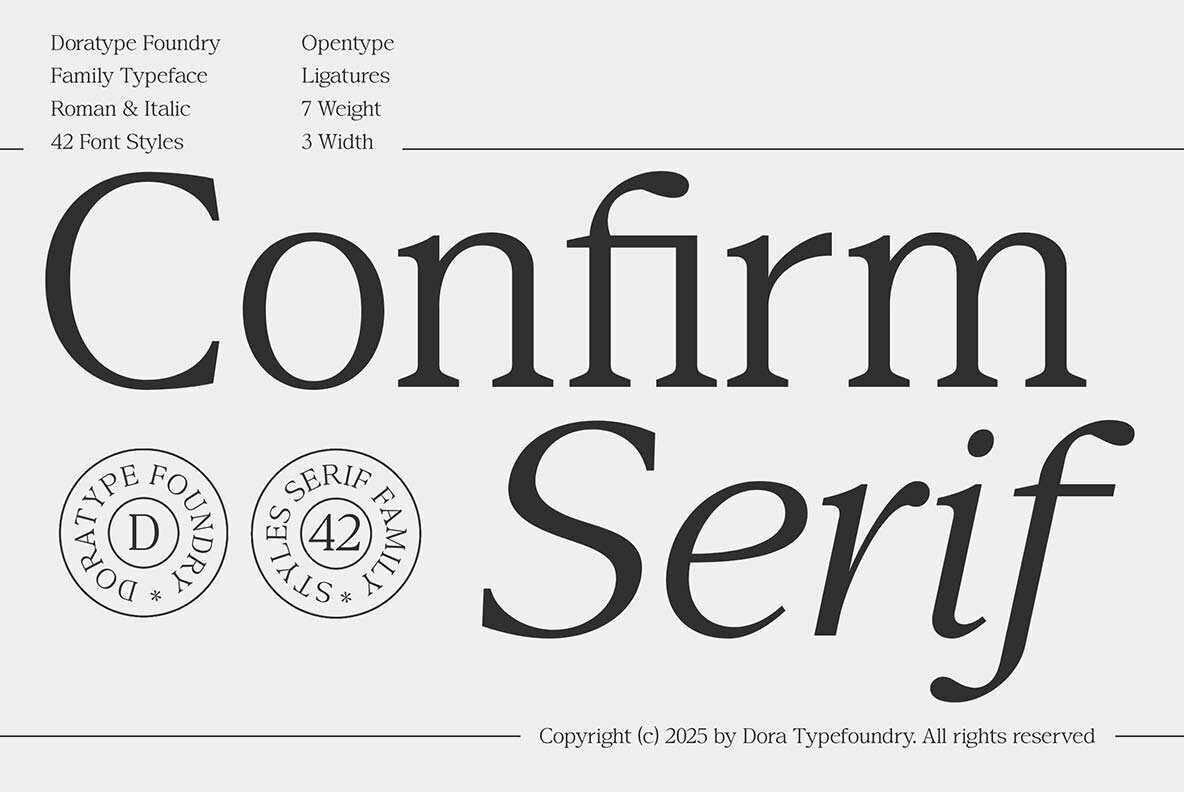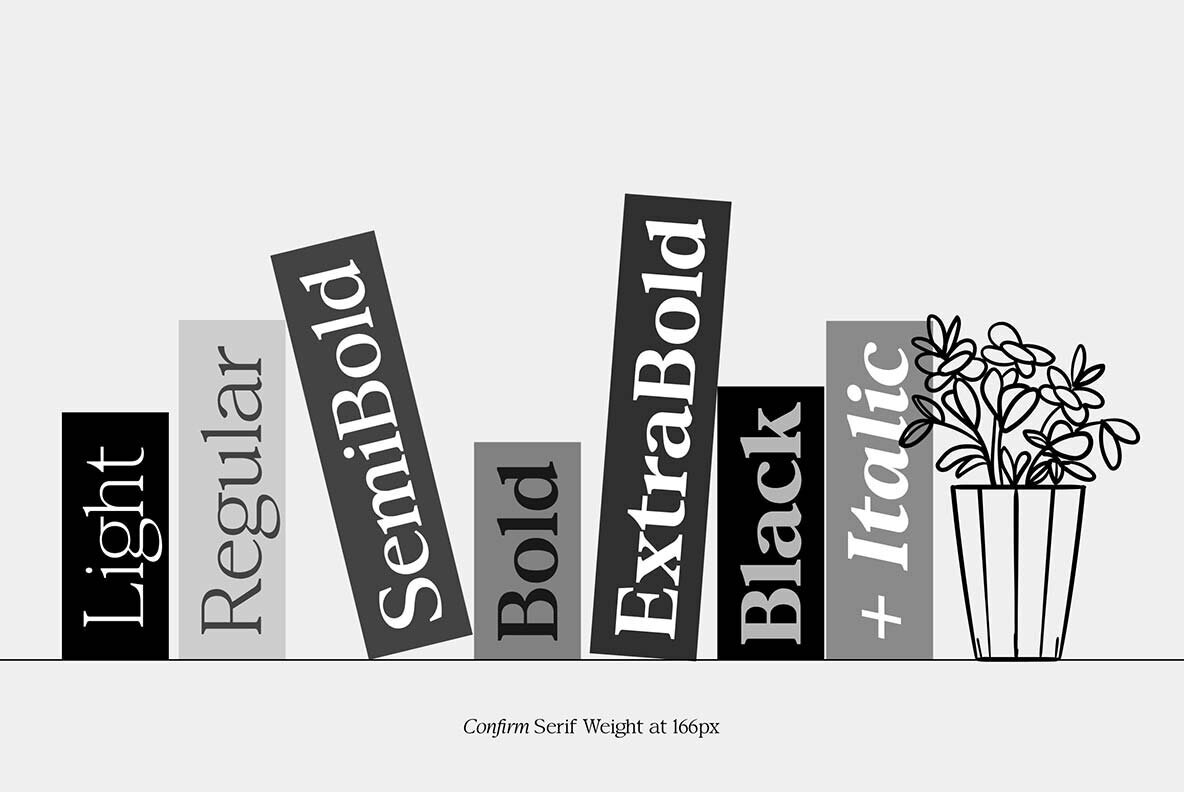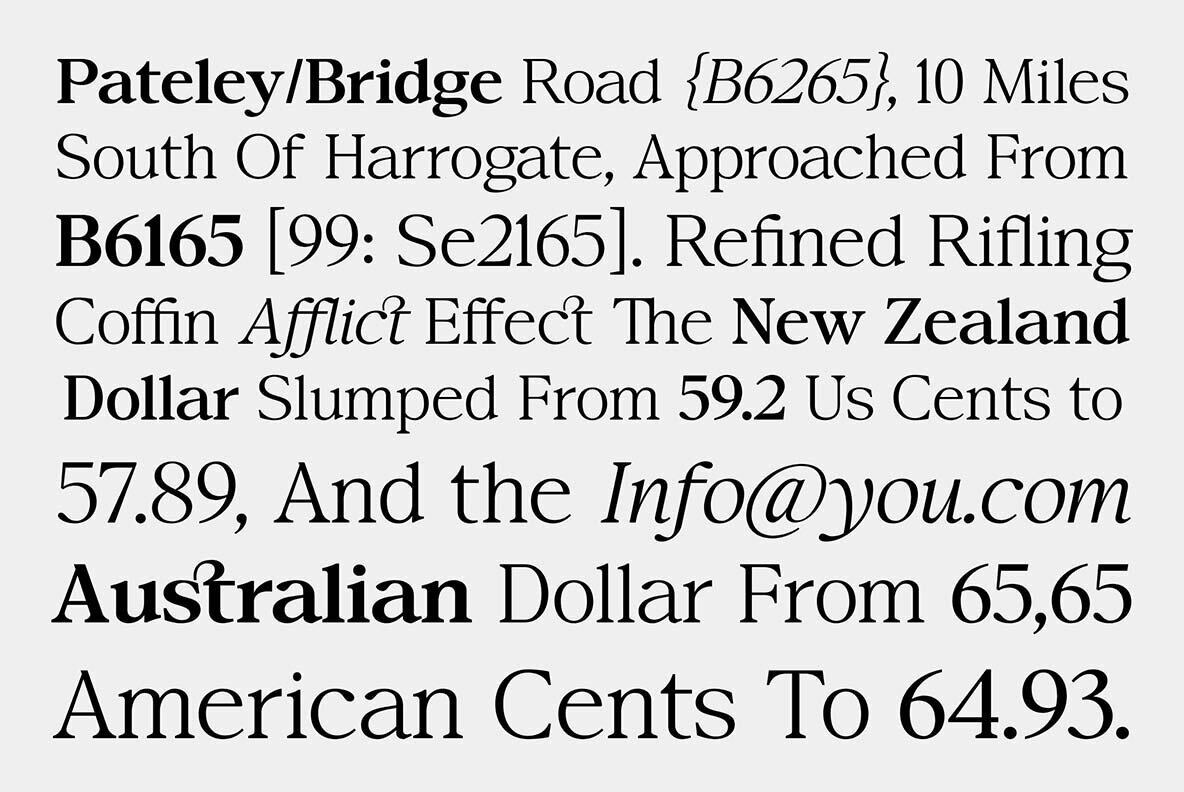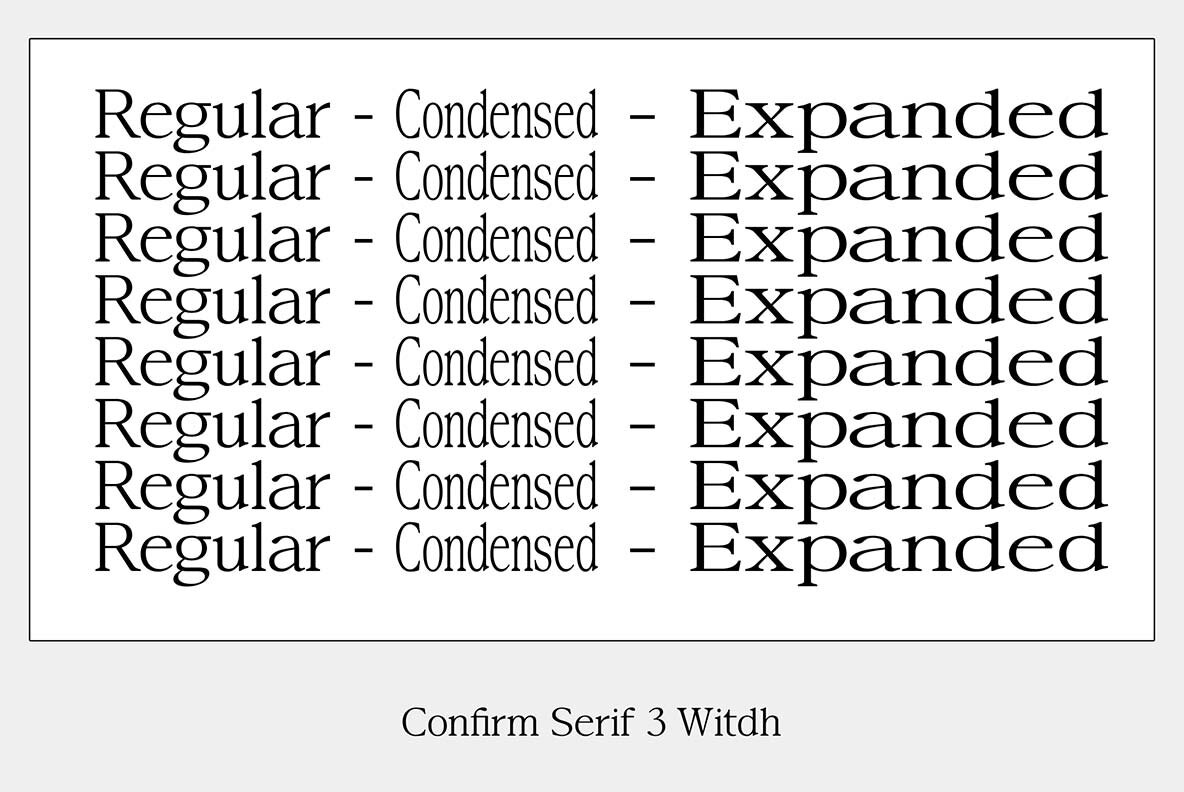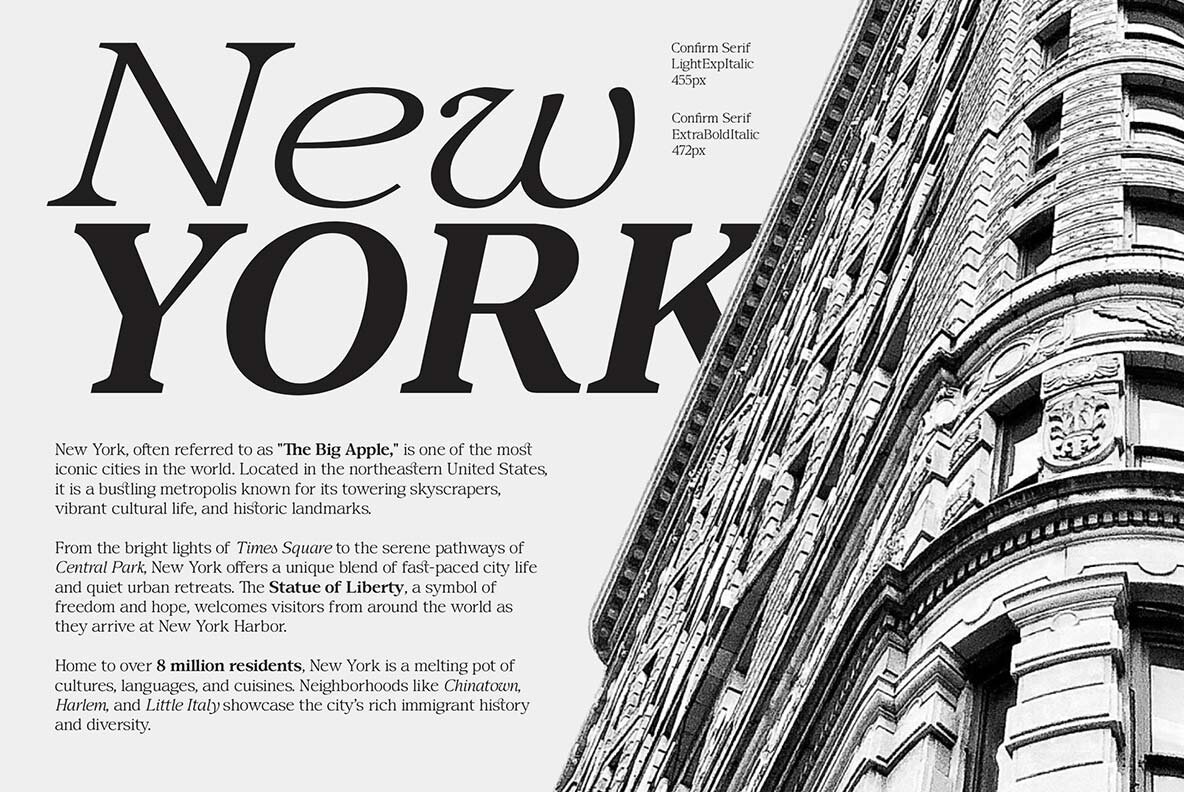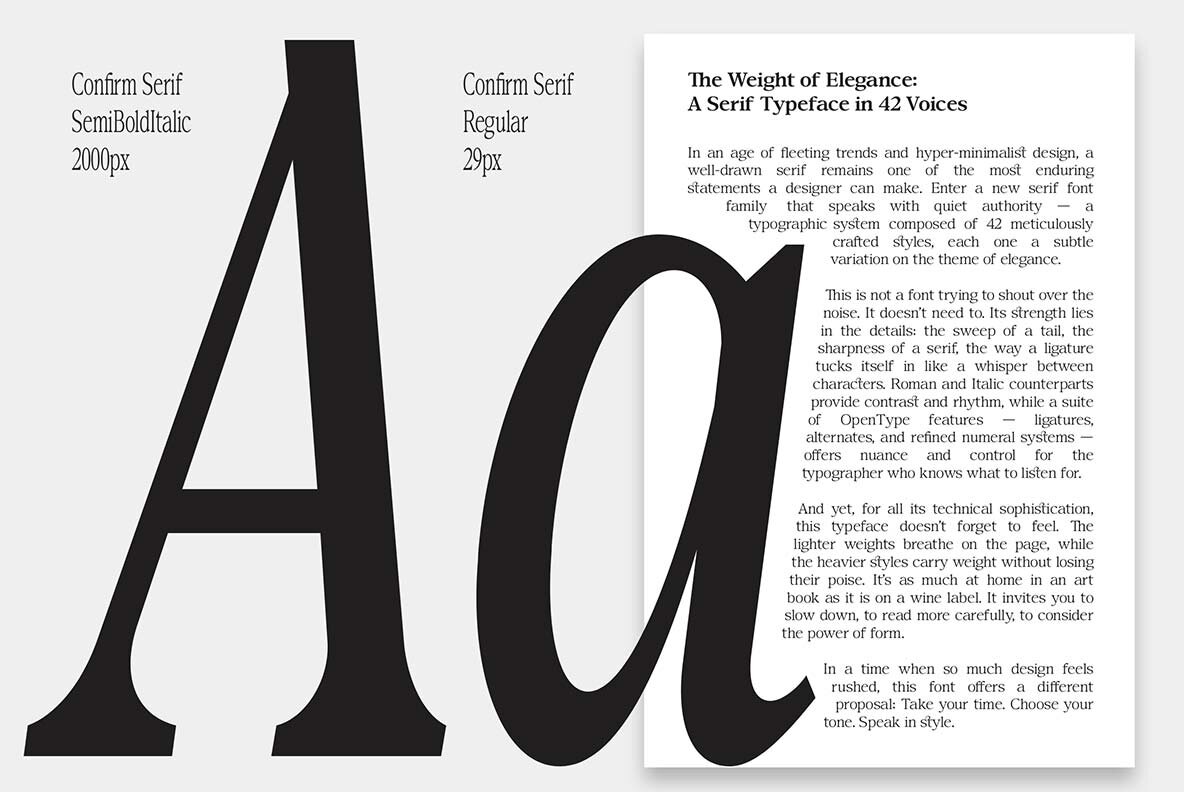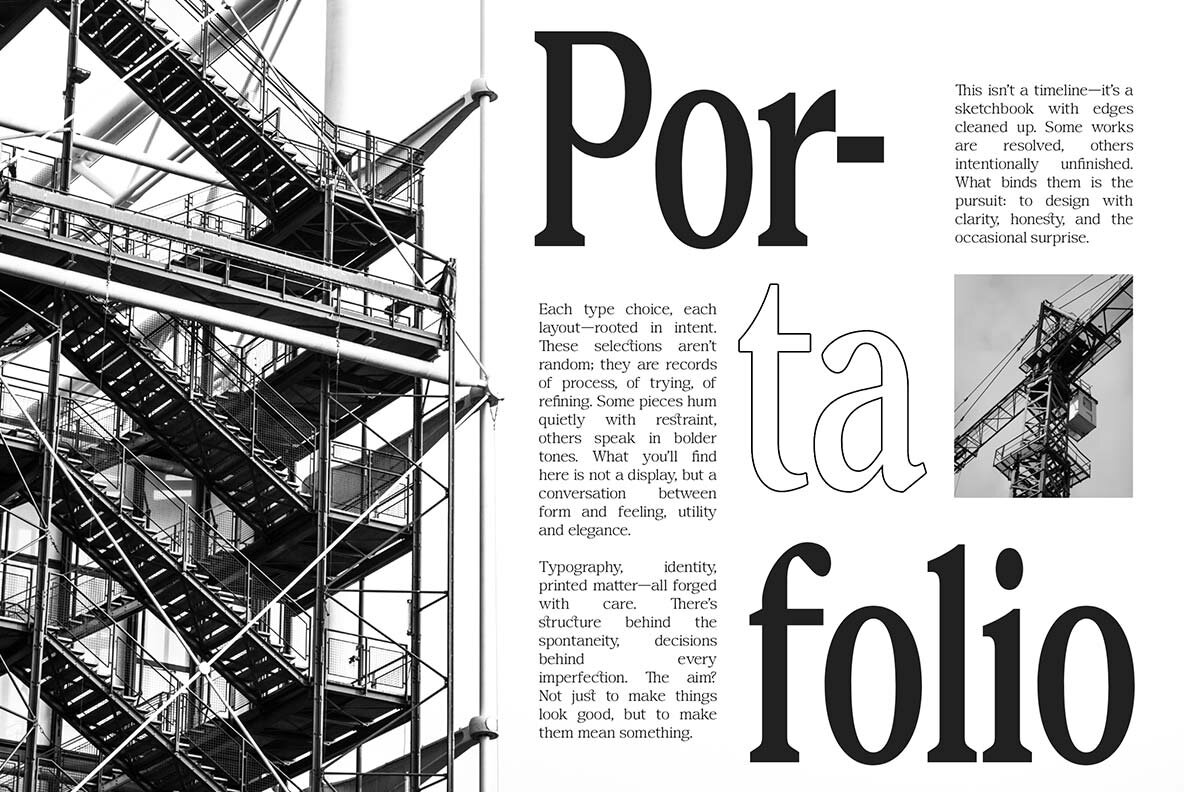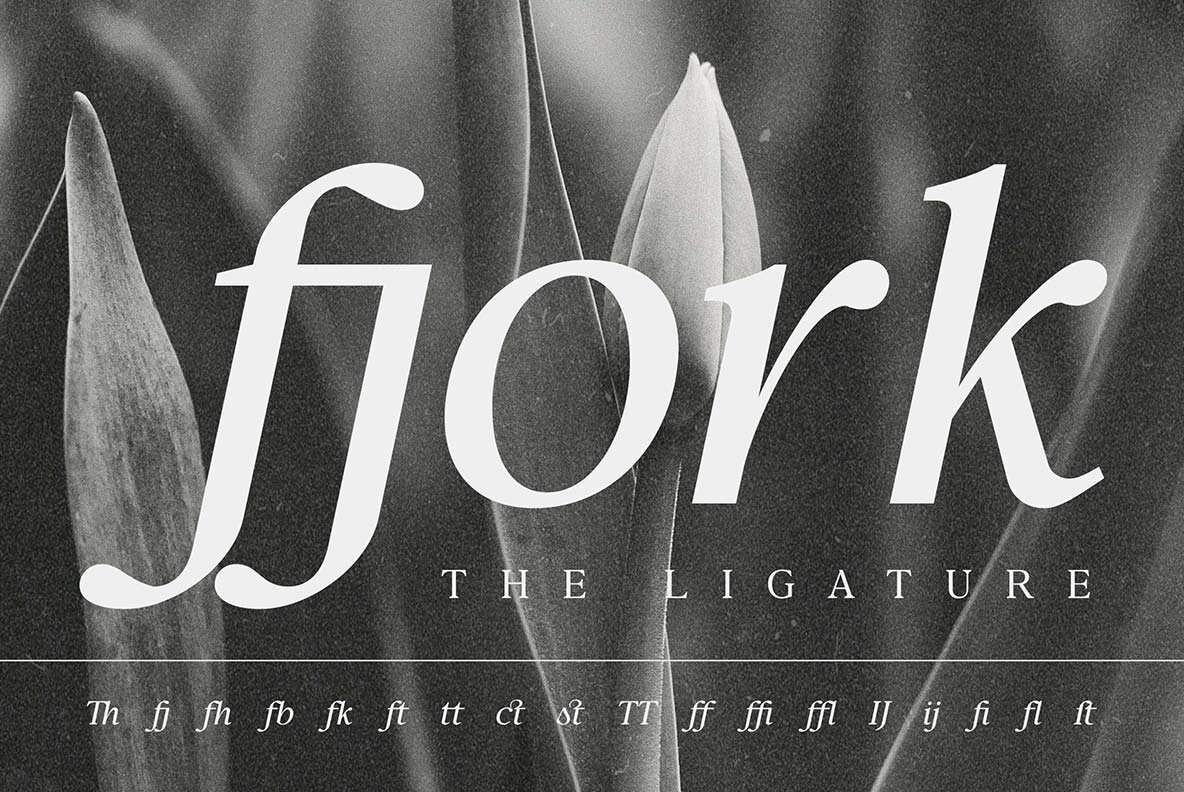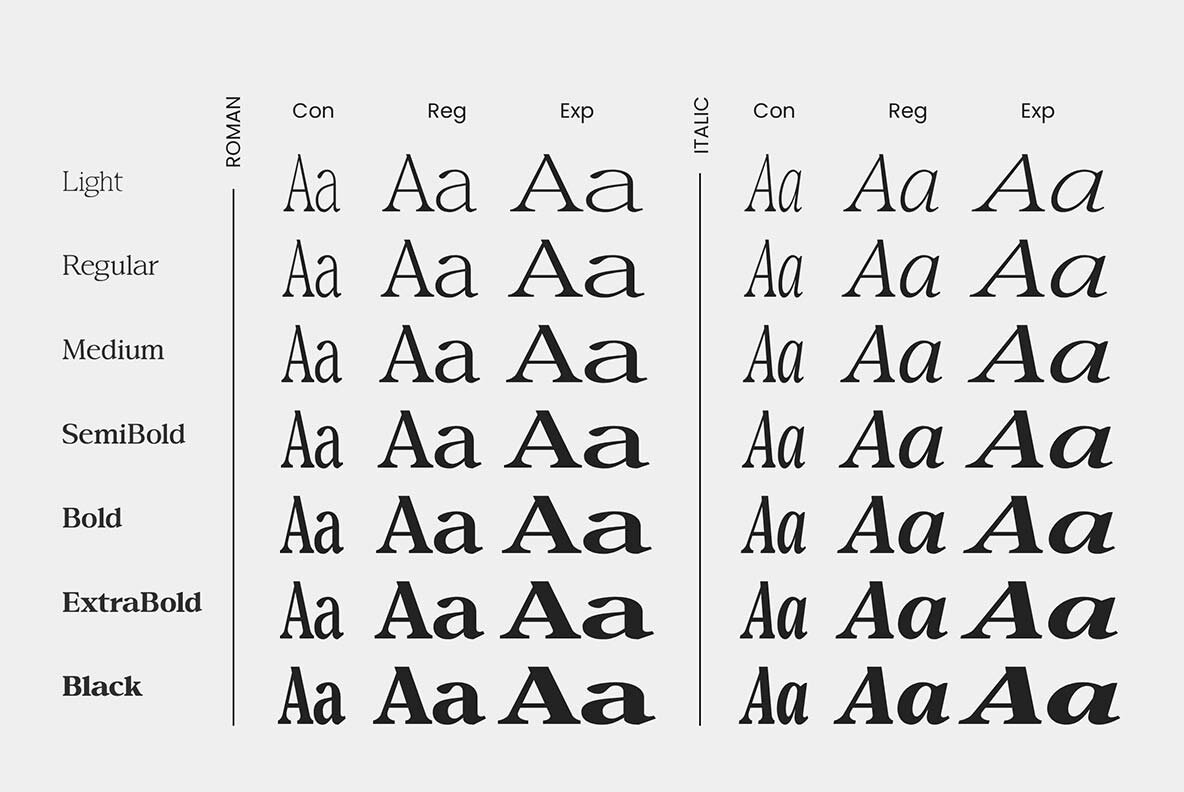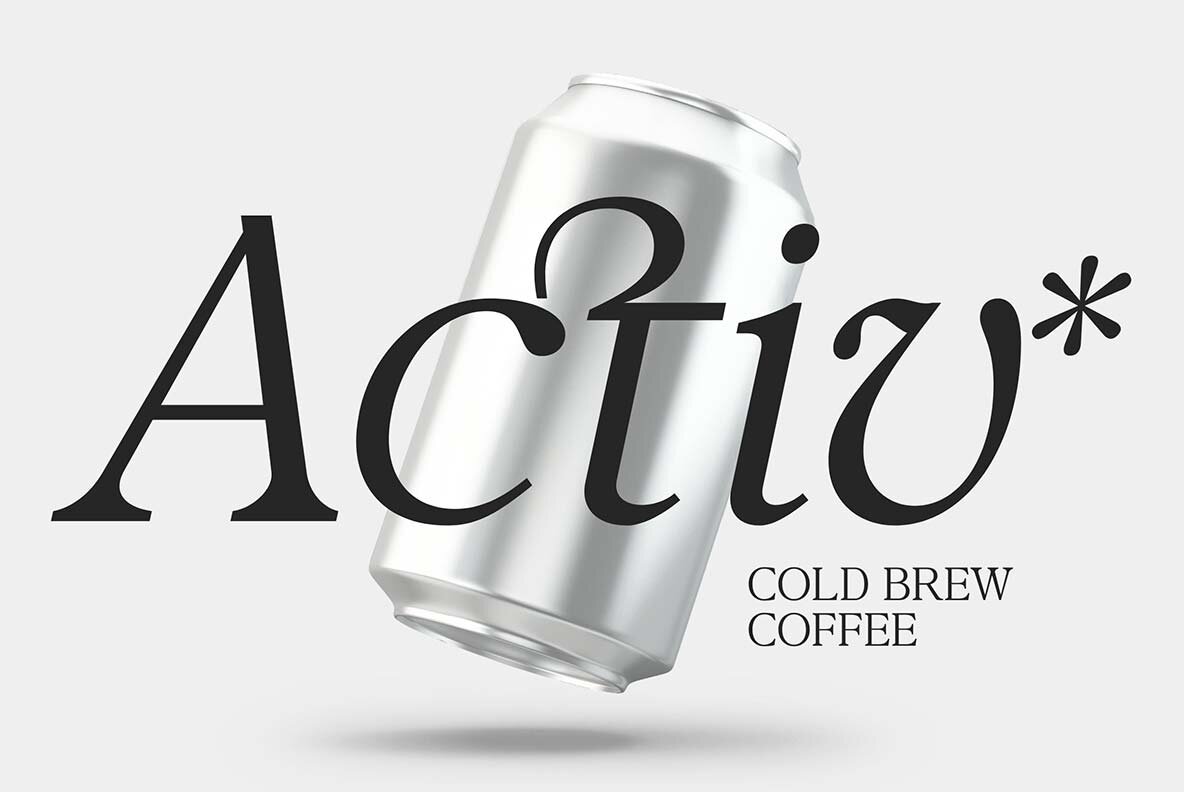
Confirm Serif Font
Confirm Serif stands as a quintessential serif typeface family, elegantly merging traditional form with contemporary nuances. Its design features a balance of robust and delicate strokes, embodying a professional yet artistic essence. The typeface's Roman and Italic characters are distinguished by their harmonious bold-thin contrasts and detailed serifs, ideal for capturing a refined look. With 42 styles encompassing 7 weights and 3 widths, Confirm Serif offers unparalleled versatility for both extended text and striking headlines.Confirm Serif: A Classic Typeface with Modern Flair